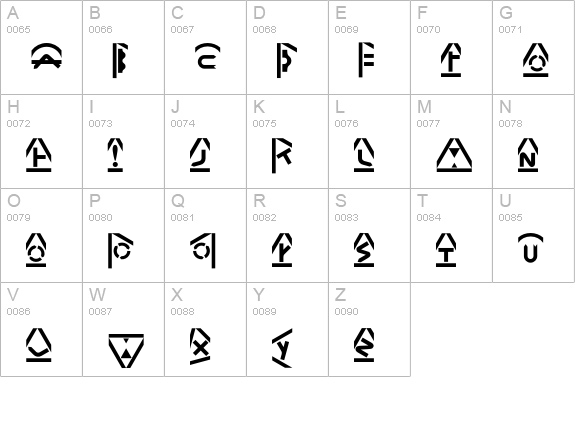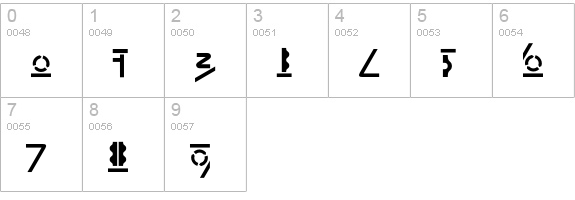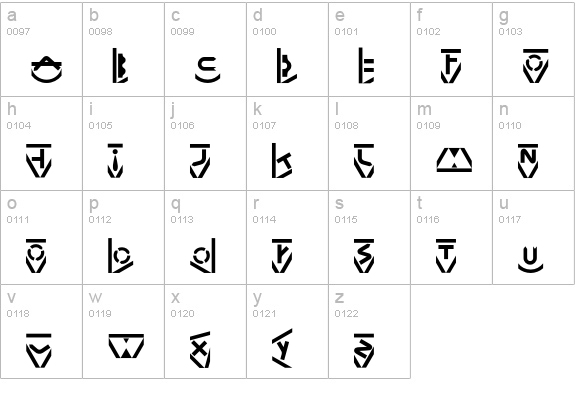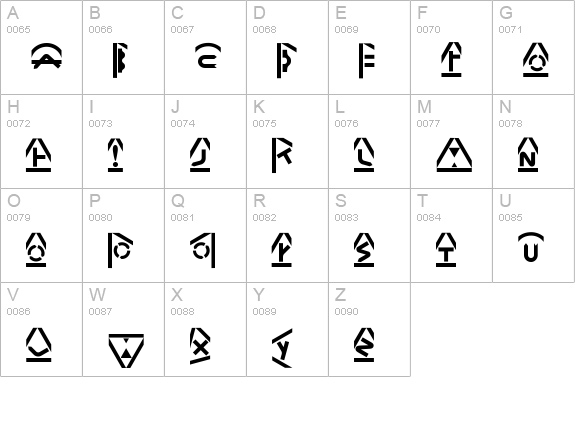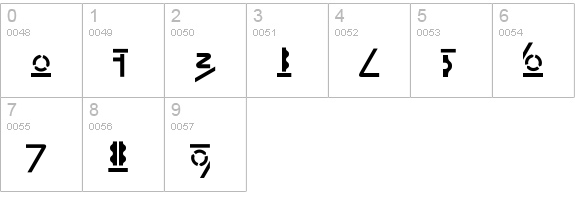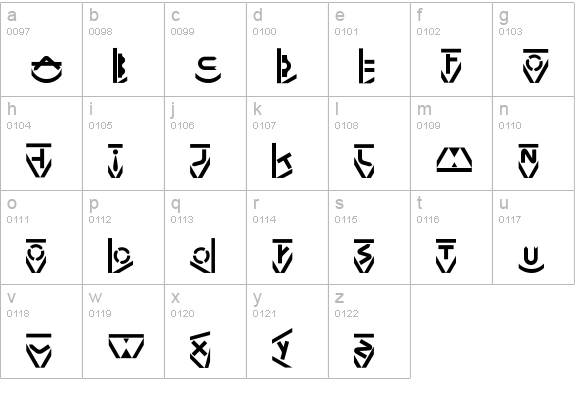
ATwentySix font is a modern and stylish typeface that exudes elegance and sophistication. Its sleek and clean design makes it perfect for a wide range of design projects, from branding to editorial design. With its versatile character set and unique letterforms, ATwentySix font effortlessly captures attention and adds a touch of refinement to any creative work. The best part about ATwentySix font is that it is completely free! Yes, you read that right - this exquisite font is freely available to download at FontsMarket.com. So whether you're a designer looking to elevate your projects or a creative enthusiast in search of a beautiful typeface, ATwentySix font is the perfect choice for adding a touch of class to your designs. Don't miss out on this amazing opportunity to enhance your creations with this stunning font - download ATwentySix font today and let your creativity shine!